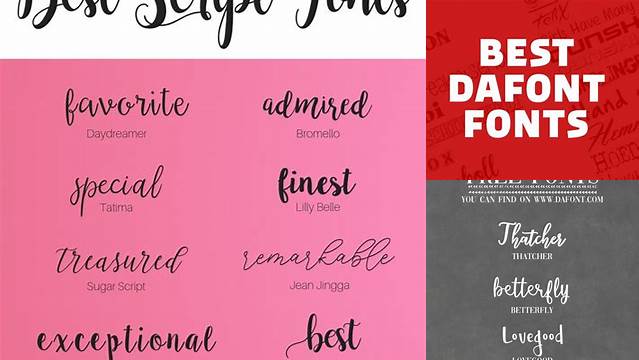
DaFont Script Fonts: Top Picks For Stylish Designs
Introduction: Script Fonts, The Art of Elegant Typography
Hey guys! Ever find yourself staring at a blank document, dreaming of a font that just screams sophistication? That's where script fonts swoop in to save the day. They're the cool kids of the typography world, mimicking the flow and grace of handwriting. Think of them as the digital version of a handwritten note, adding a personal touch and a whole lot of flair. Script fonts have this incredible ability to make your design projects pop, whether you're crafting wedding invitations, designing logos, or even jazzing up your website. They're all about that elegant, flowing vibe, instantly elevating the aesthetic of whatever you're working on. DaFont, being the treasure trove of fonts that it is, has an awesome selection of script fonts, and we're diving deep into the best of the best. We will explore the different styles, from the classic and formal to the modern and playful. So, buckle up, because we're about to embark on a font adventure to discover the perfect script fonts for your creative endeavors. Script fonts are super versatile, and they can totally transform your project. They can add a touch of nostalgia, a hint of luxury, or a whole lot of personality. The key is knowing what kind of vibe you're going for and selecting the right font to match. Let's get started and see what script fonts from DaFont will be your new favorite fonts!
Script fonts are more than just a collection of letters; they are designed to mimic the fluidity and artistry of handwriting. They offer a range of styles, from the elegant curves of traditional calligraphy to the more casual, brush-stroke appearance of modern designs. The careful execution of script fonts can evoke feelings of sophistication, creativity, and individuality, making them a perfect fit for branding, marketing, and personal projects. Script fonts can enhance your design projects by adding a sense of elegance, or personality. They are used across various applications, including invitations, posters, logos, and websites. Using script fonts can create a visually striking design.
Script fonts are ideal for projects where you want to create a personal and handcrafted touch. The diversity of styles within this category allows designers to pick the perfect match for any project, ranging from professional branding to personal craft projects. Choosing the right script font can boost the visual appeal of your work and convey the message you intend to deliver. The flexibility of script fonts is why they are a good option for any project. Let's look at some of the best script fonts on DaFont.
Exploring DaFont: Your Font Paradise
DaFont has an extensive collection of script fonts, ranging from elegant calligraphic styles to casual brush-stroke fonts. DaFont also provides users with a wide range of fonts for various types of projects, including those that focus on branding and marketing. DaFont provides an easy to use format and a wide variety of fonts. This allows designers and creatives to find the ideal script font to match their project's vibe. The platform's user-friendly interface enables users to search for script fonts based on style, theme, and designer, making it super easy to find the perfect font for any project. DaFont's constant updates guarantee that you always have access to new and trending script fonts. The website is a great tool for anyone looking to add elegance to their designs. Now let's move on to our favorite fonts on DaFont.
Top Script Fonts on DaFont: A Curated Selection
Alright, here's the fun part – diving into some of the top script fonts you can find on DaFont! I've put together a list of some of my personal favorites, covering a range of styles to get your creative juices flowing. Remember, the best font is the one that perfectly matches your project's vibe, so get ready to explore and find your perfect match. Whether you're looking for something classic and elegant, or modern and playful, I've got you covered. Let's take a look at some amazing choices that will elevate your projects. We're going to explore a range of script font styles, from traditional calligraphy to modern brush strokes, providing you with a diverse selection to suit any design project. These fonts will offer a quick guide to help you discover the perfect font. Here are some of the top script fonts on DaFont:
- Great Vibes: This font is super elegant and timeless, with beautiful, flowing letterforms that are perfect for invitations, wedding projects, or anything that needs a touch of class. It's got that classic calligraphic look, and it's super readable, making it a great choice for both headlines and body text. The curves and the graceful flow make this an excellent option for designs that need a sophisticated touch. Its classic calligraphy style makes it a favorite for designs that need a sophisticated touch. It is perfect for anything elegant.
- Dancing Script: Dancing Script is a playful and fun script font that's perfect for a more relaxed and casual look. It's got a bouncy feel, making it ideal for logos, quotes, and social media graphics. It's got a great energy that can make your designs feel lively and inviting. This font is super versatile and easy to read. The lively look of this font makes it a go-to choice for projects needing a relaxed and fun touch.
- Playlist: This font has a stylish and modern vibe, which is great for branding projects or contemporary designs. It has clean lines and a slightly condensed style, giving it a sophisticated feel without being too formal. Playlist is also a great choice for logos or headlines where you want something that stands out. This font is a popular choice for branding or headlines.
- Alex Brush: If you want a font that's elegant and easy to read, Alex Brush is your best option. It's perfect for invitations, cards, and any design that needs a touch of handwritten elegance. This font has a natural flow and lovely curves that are easy on the eyes. Its easy-to-read design and natural flow have made it a staple in the font world. It's a great option for adding elegance to any project.
- Allura: Allura is a beautiful and romantic script font that's perfect for designs that need a touch of femininity. It's got elegant curves and a delicate look, making it a great choice for wedding projects or anything that needs a romantic touch. It has a vintage look, and it's super versatile. It's an ideal selection for adding a touch of romance to your design.